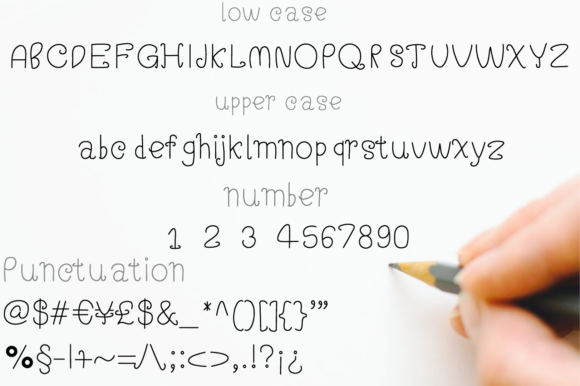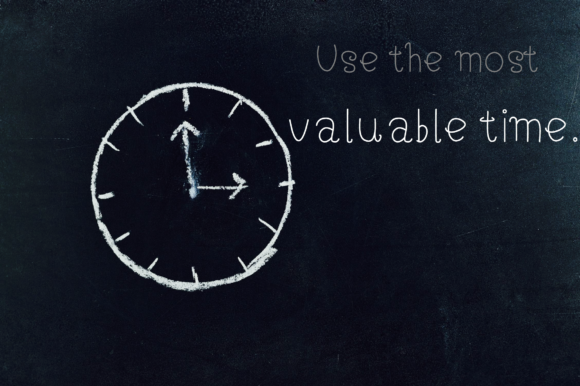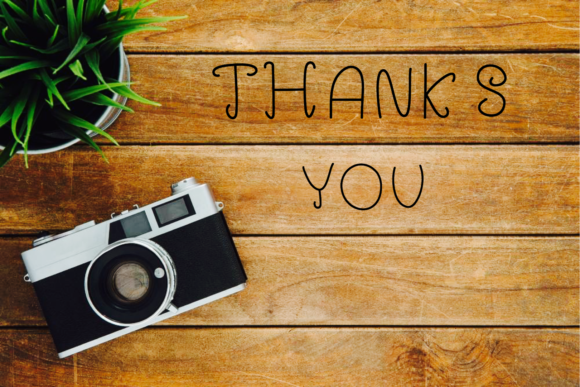
Flowers Font
Flowers: Embrace the Delicate and Elegant Flowing Beauty
Introducing Flowers, a delicate, elegant, and flowing handwritten font that captures the heart with its grace and sophistication. With beautiful and well-balanced characters, this font is a perfect match for a wide pool of designs. Add Flowers to your most creative ideas and experience how it breathes life into your projects, elevating them to new heights of exquisite charm. Whether you’re crafting enchanting wedding invitations, designing refined logos, creating heartfelt quotes, or any other project that seeks a touch of elegance—Flowers is the ideal choice. Embrace its beauty and let it empower your creations to come alive with grace and allure.
The allure of Flowers lies in its delicate and elegant nature. Each letter is meticulously crafted to maintain a sense of uniqueness, exuding grace and sophistication that captivate the eye.
Designing with Flowers is a delightful experience. Its flowing strokes and well-balanced characters bring authenticity and allure to your creations, making them truly special and captivating.
Fall in love with the versatility of Flowers. Whether you’re designing for joyous celebrations or expressing heartfelt sentiments, this font effortlessly adapts to suit your creative vision.
Unleash your creativity with Flowers. Its delicate and flowing style allows you to create designs that exude elegance, adding a touch of sophistication to your projects.
Gorgeous designs come to life with Flowers’ delicate and elegant touch. Whether you’re crafting romantic wedding invitations or designing heartfelt quotes, this font adds a sense of refined charm that mesmerizes your audience.
In conclusion, Flowers is more than just a font; it’s a delicate and elegant masterpiece that invites you to embrace the allure of handwritten beauty. Add it to your most creative ideas and watch as your projects come alive with a sense of refined elegance. Whether you’re celebrating love, expressing creativity, or engaging in any creative endeavor, Flowers will be your trusted companion, adding a touch of sophistication and allure. Allow this font to unlock the full potential of your creativity, and experience how it elevates your designs to new levels of exquisite charm. Fall in love with the timeless spirit of Flowers and let it guide you to create designs that leave a lasting impact on all who behold them.